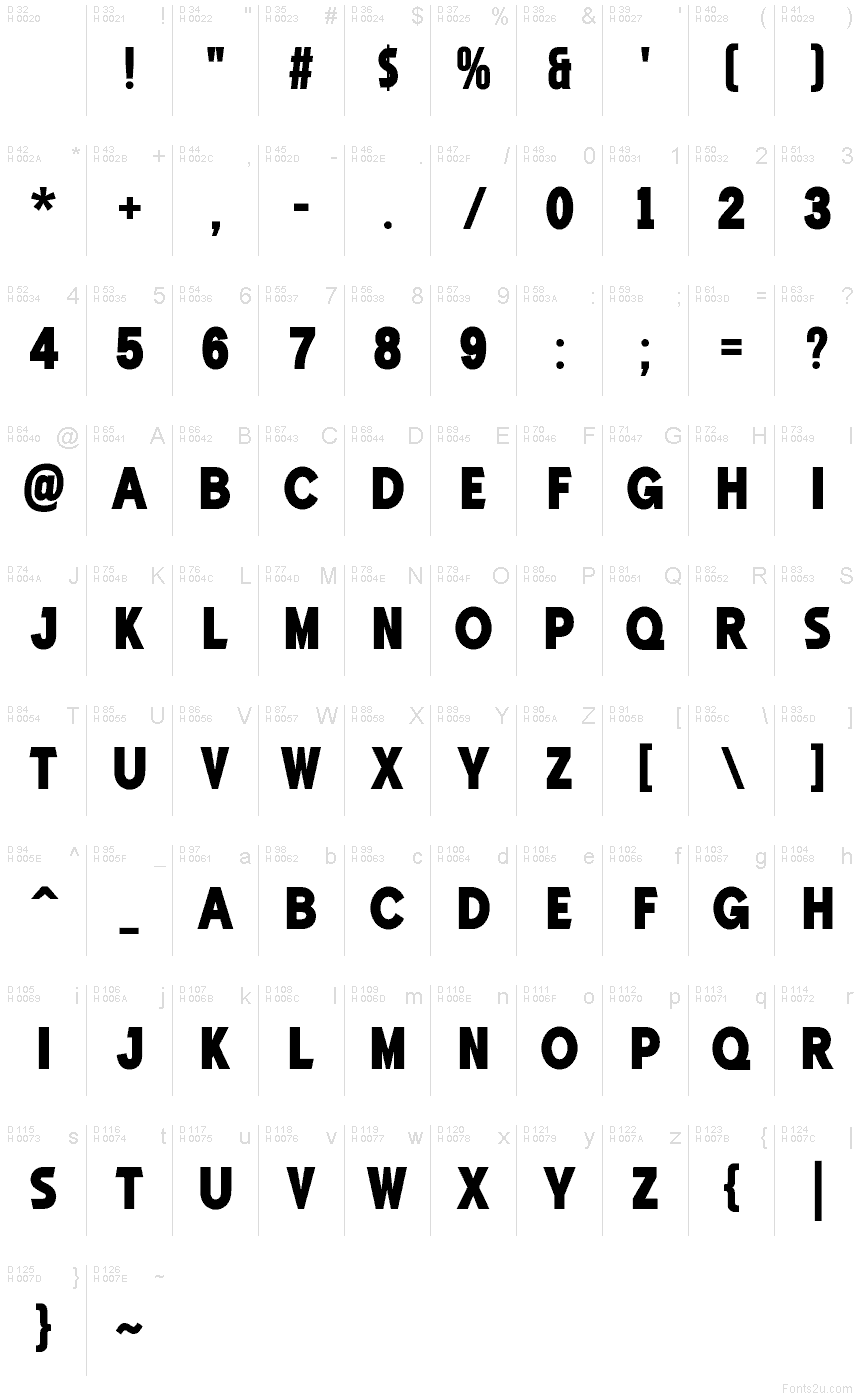
Doing
Doing font by Graphicxell is a free bold sans serif font. Its slab-like strokes, blunt terminals, and tight, rounded counters create a dense, no-nonsense silhouette that reads instantly at scale. The rhythm is steady and monoline, so even at oversized sizes it stays clean, delivering billboard-level impact without visual noise.
Using Doing, headlines snap into place on posters, social graphics, product packaging, logos, event flyers, and magazine covers. This free font thrives in tight compositions where you need immediate presence and unflinching clarity. Try pairing Doing with a light grotesk for body copy, and add a hair of letterspacing if you drop below large headline sizes.